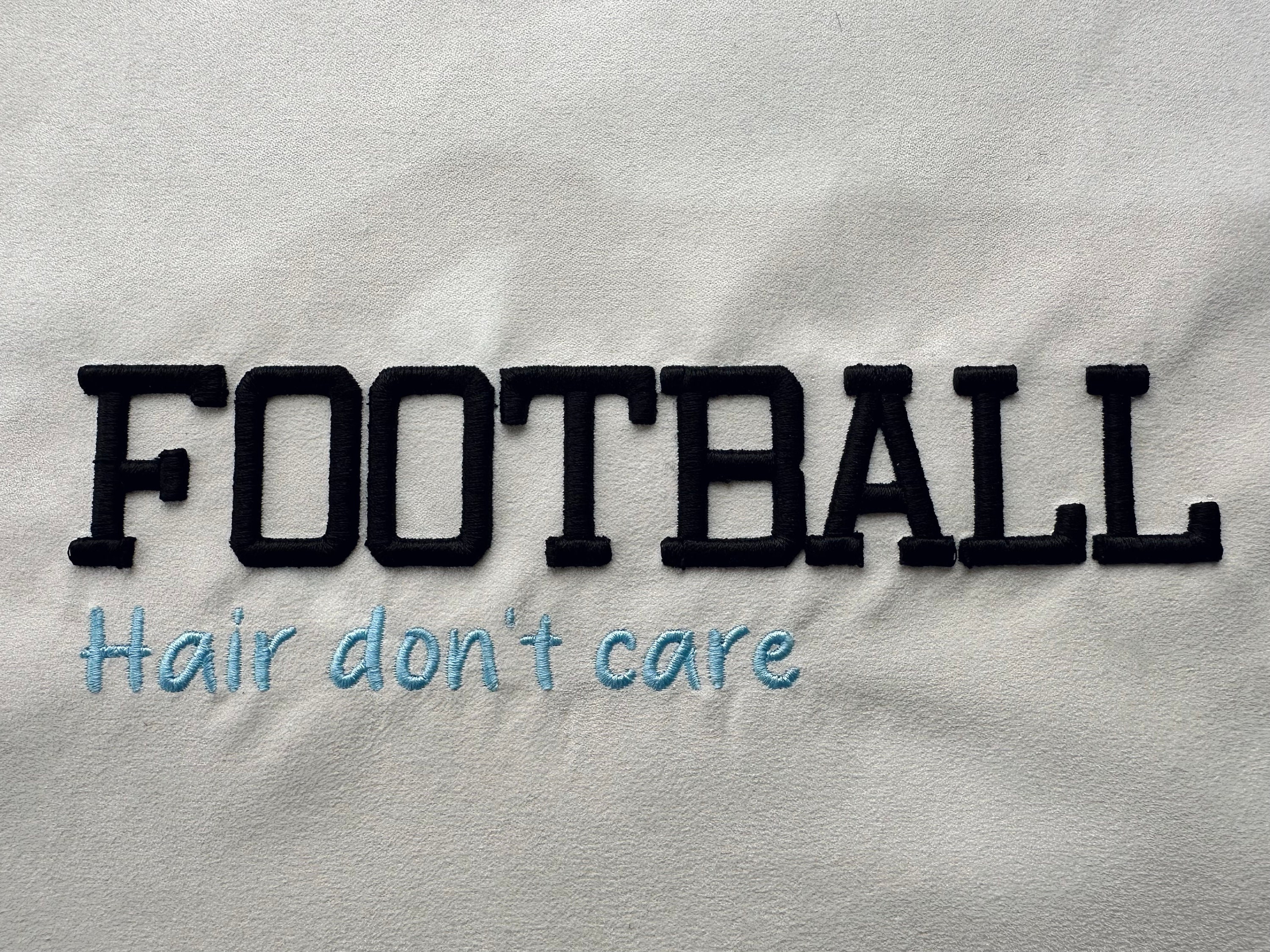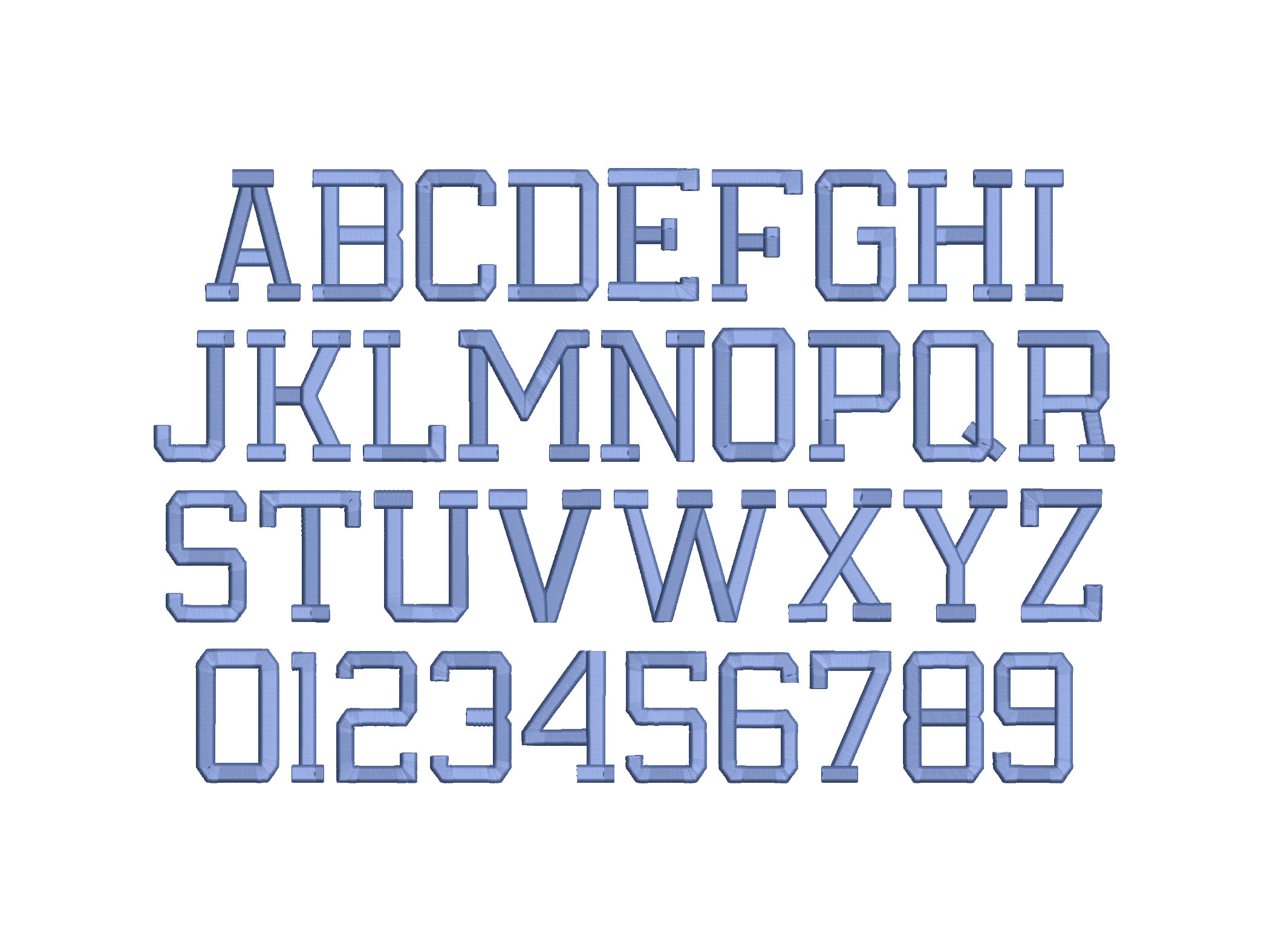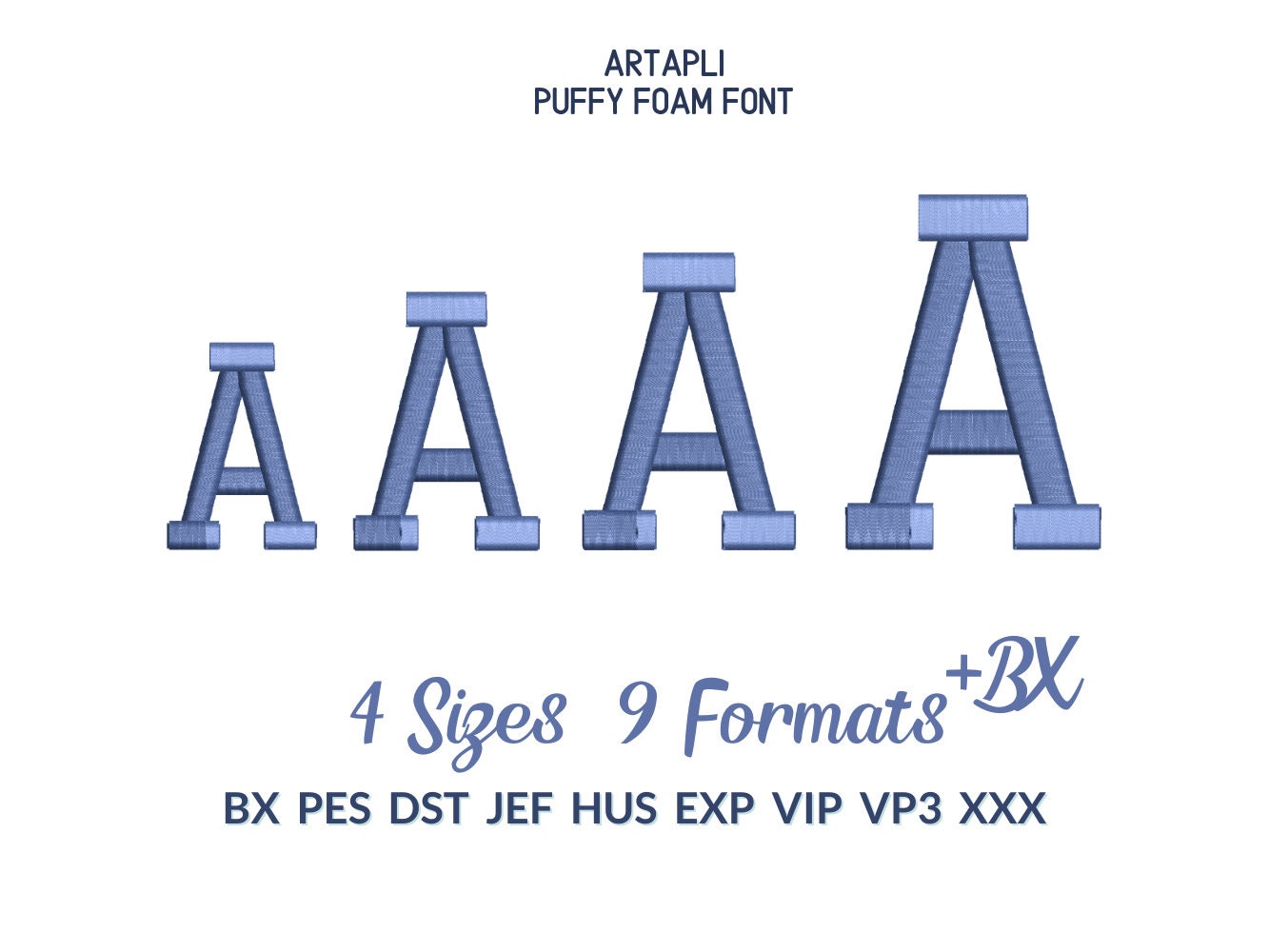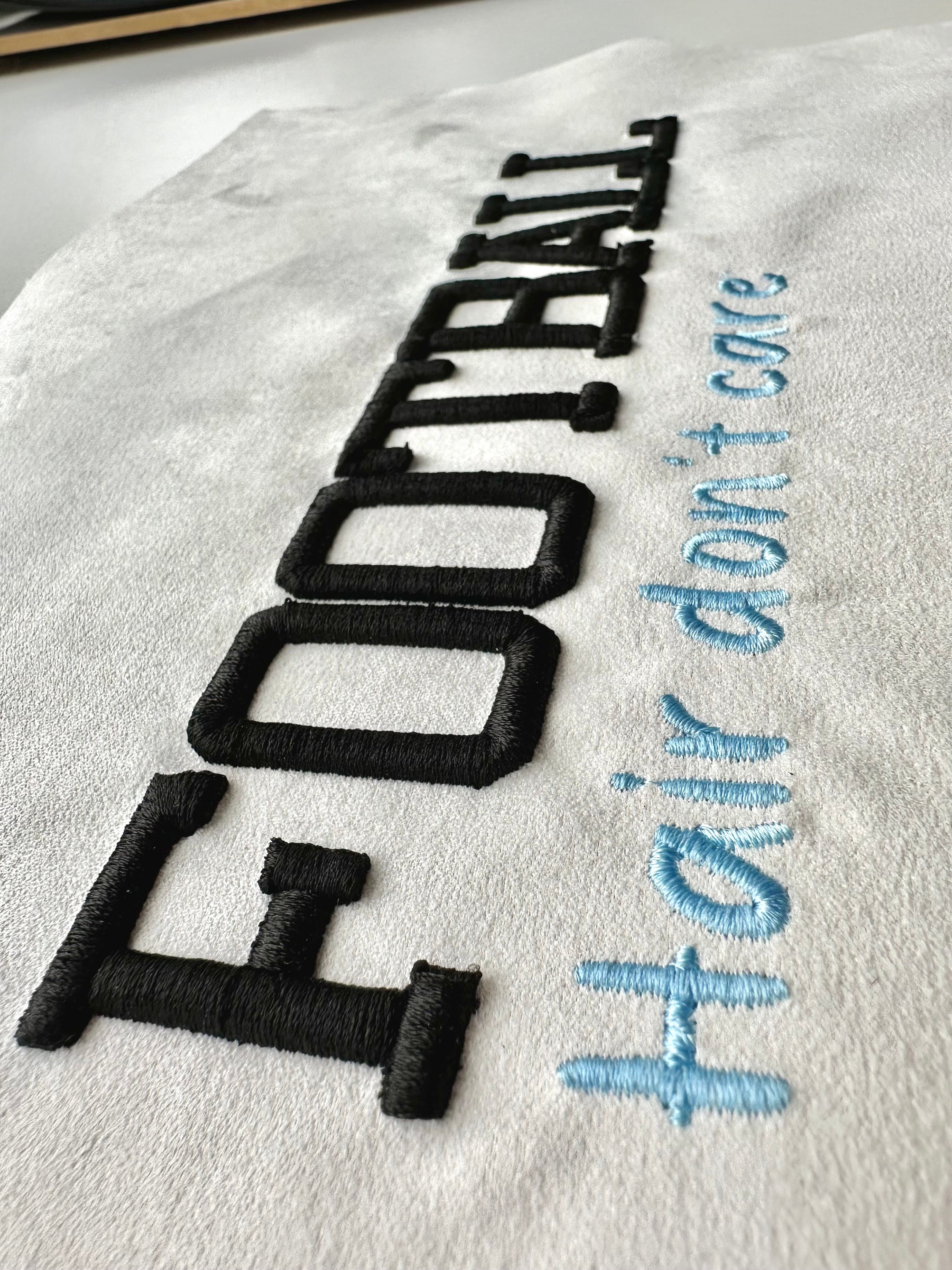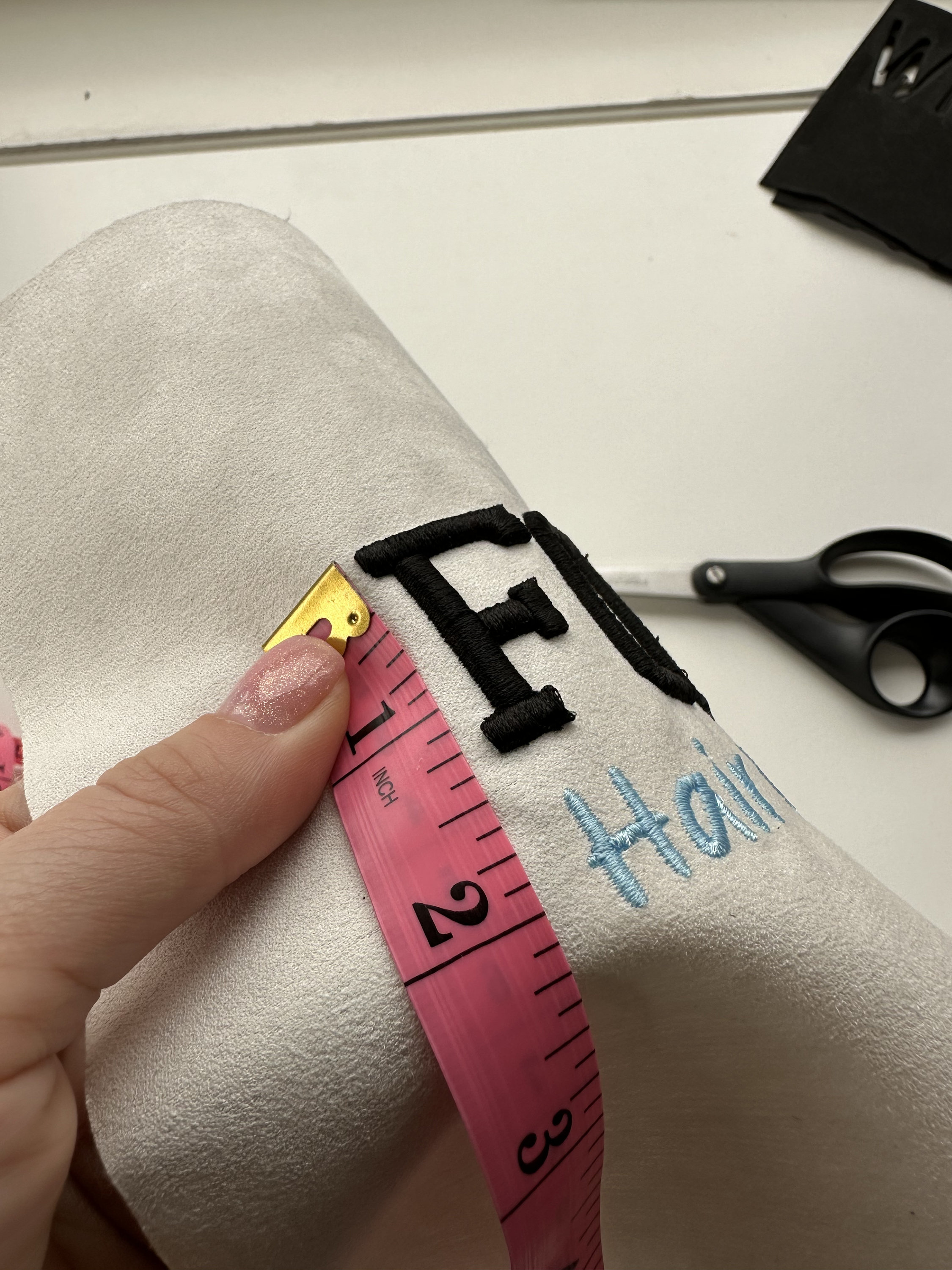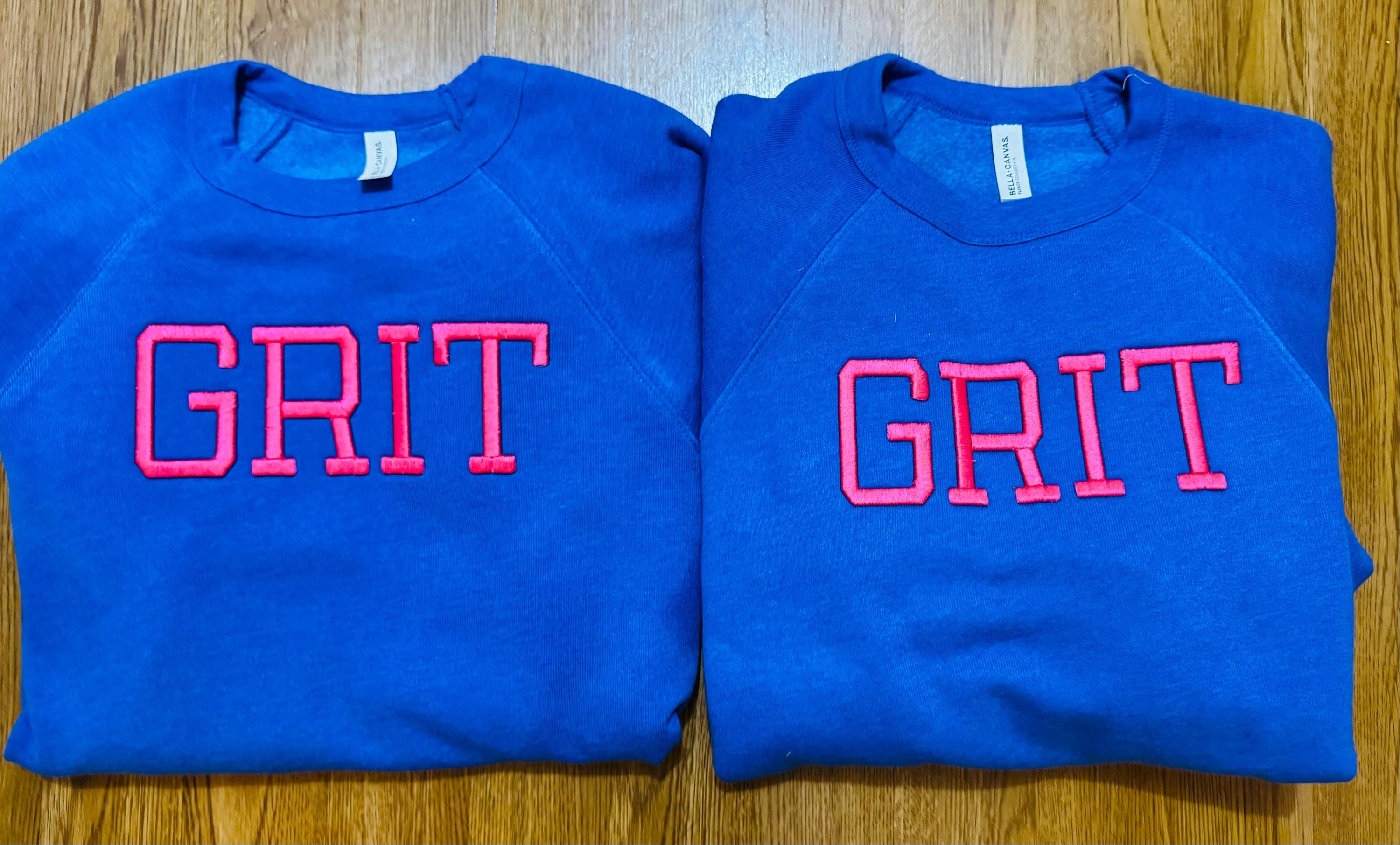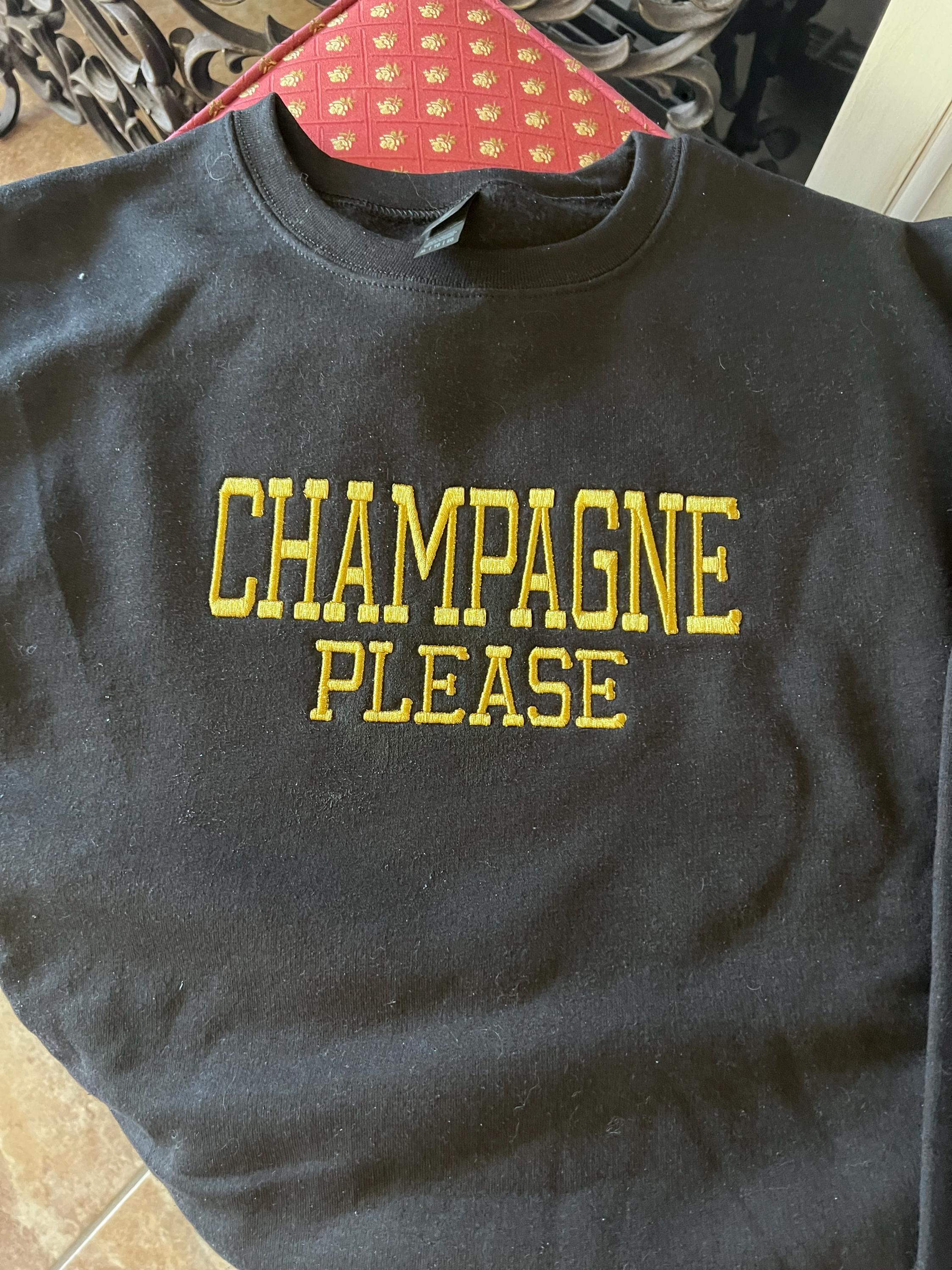
Puff Embroidery font file machine embroidery designs 3D raised Puffy Foam 3D Narrow alphabet monogram Block Font 1.8, 2.3, 2.6, 3.1 inches, BX
Whole alphabet A-Z uppercase and numbers 0-9.
For this design embroidery puffy foam is required. I'm using Gunold puffy foam thickness 3 mm.